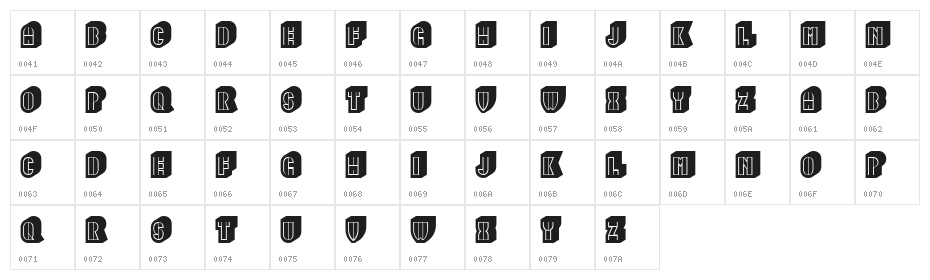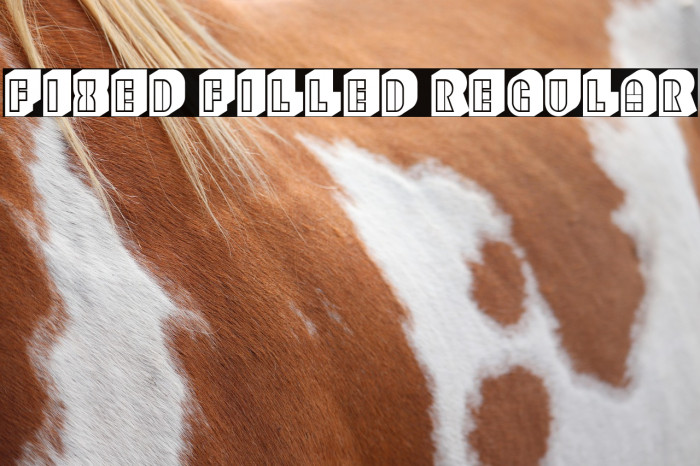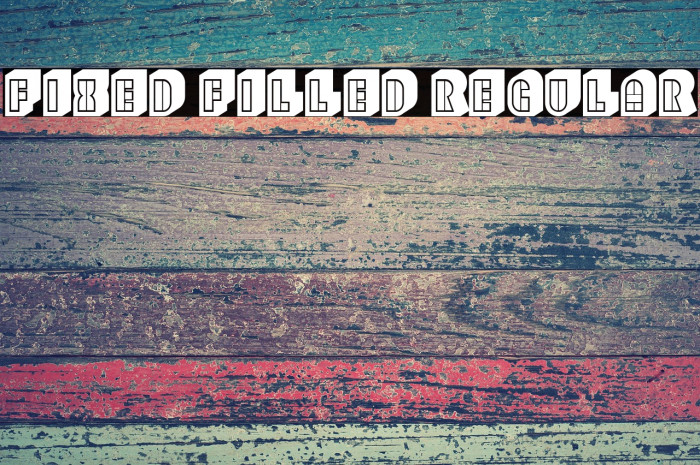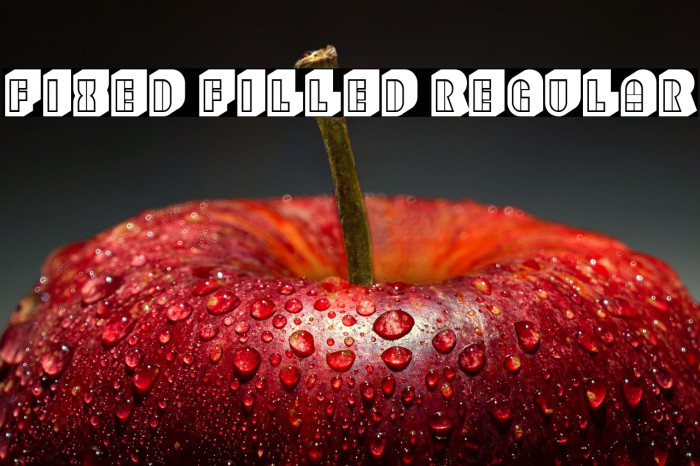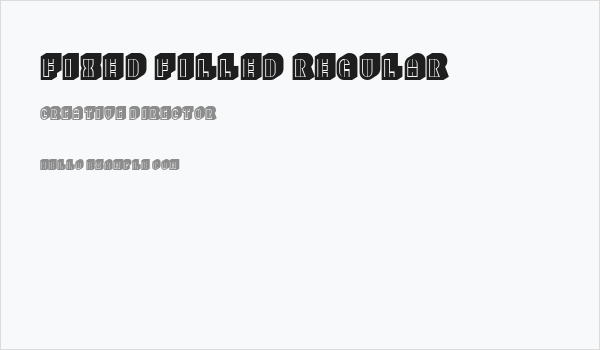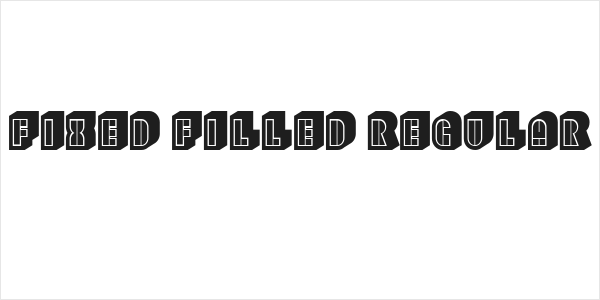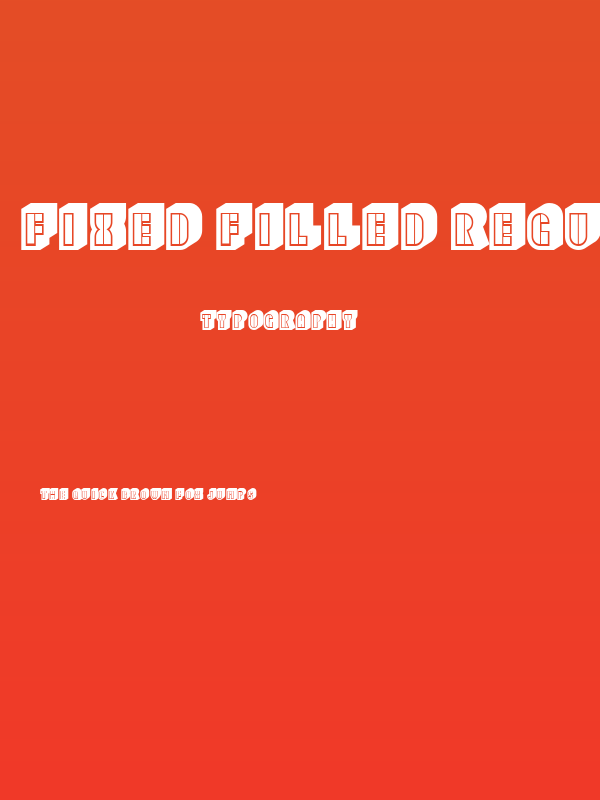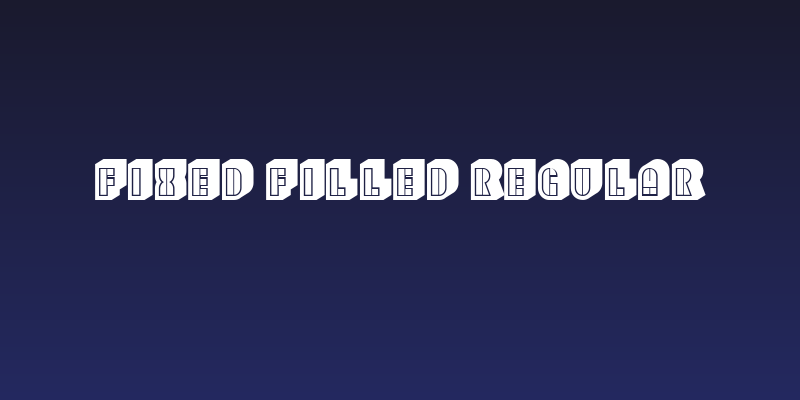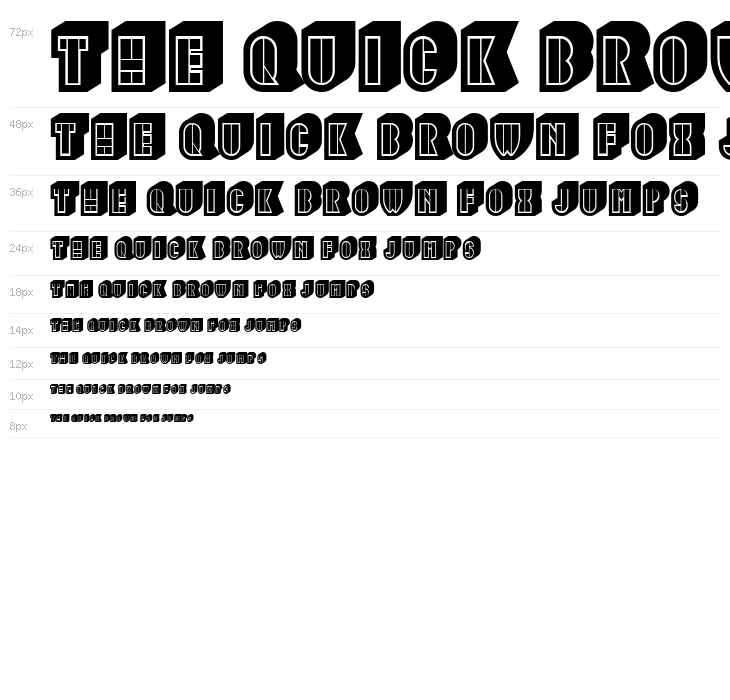
Fixed Filled Regular Font
Fixed Filled Regular Description
This font features a bold and striking design with a filled, blocky appearance. Each character is enclosed within a solid outline, giving it a three-dimensional effect. The letters are uniformly structured with a consistent thickness, creating a cohesive and impactful visual style. The geometric shapes and sharp angles contribute to its modern and edgy look, making it suitable for attention-grabbing designs. The font's unique style is ideal for projects that require a strong visual presence.
| Proposed Projects | Ideal for posters, headlines, logos, and branding materials that require a bold and modern aesthetic. |